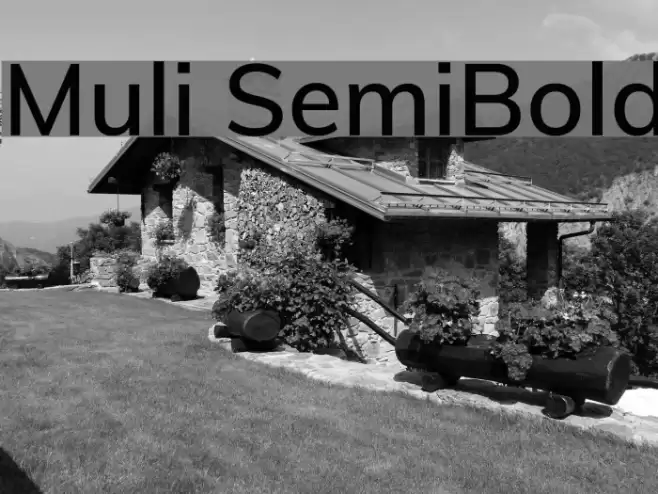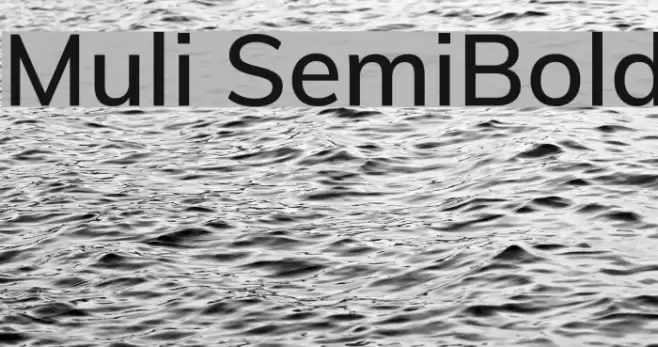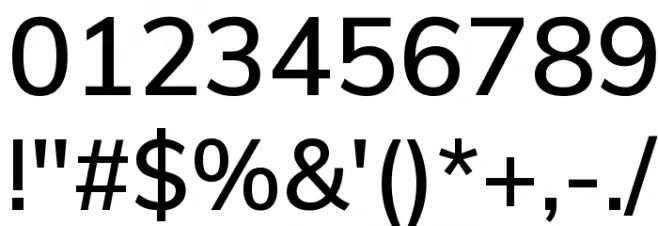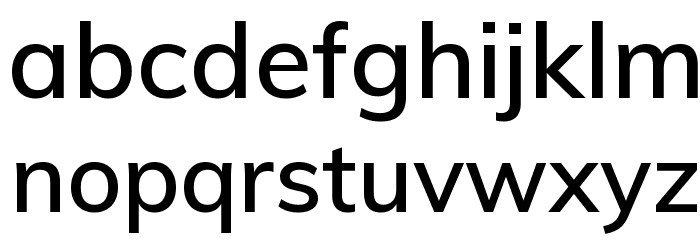
Muli SemiBold Font
Muli SemiBold Description
This typeface presents a clean and modern aesthetic with a focus on readability and simplicity. The characters are well-proportioned, featuring smooth curves and straight lines that create a harmonious balance. The uppercase letters are bold and assertive, while the lowercase letters maintain a friendly and approachable feel. The numerals are clear and distinct, making them suitable for various applications. Special characters are designed with the same attention to detail, ensuring consistency across the typeface. This font is versatile, making it ideal for both digital and print media.
A clean, modern typeface with balanced proportions and excellent readability from Uncategorized fonts.